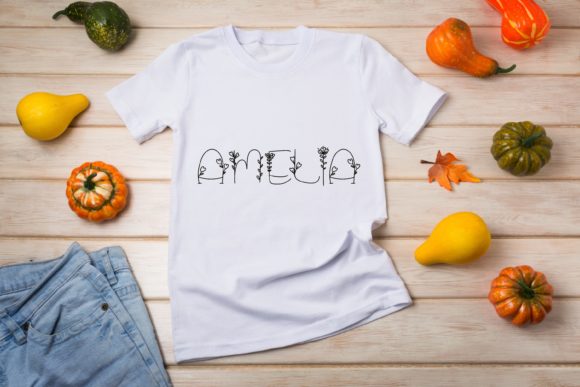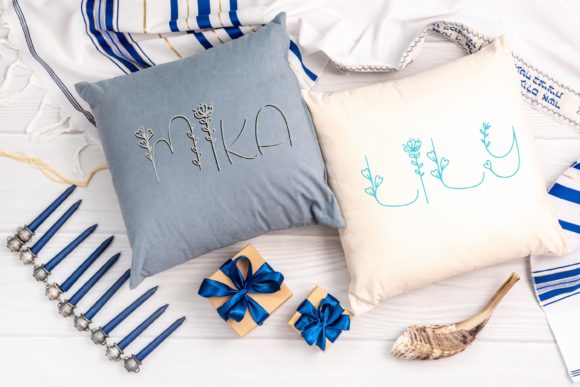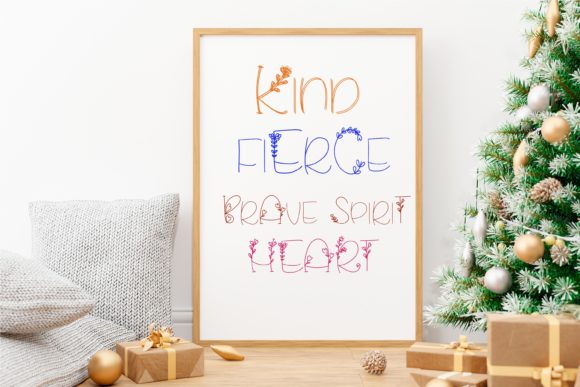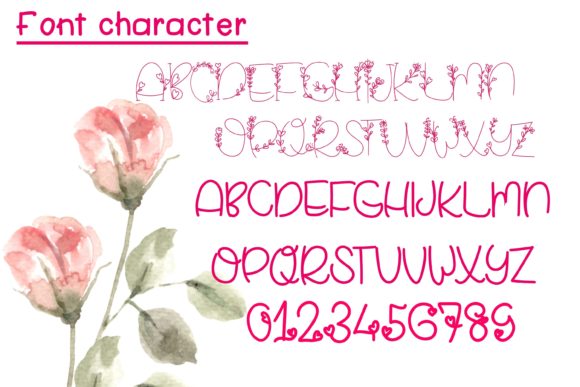
Introducing Amaryllis Font: The Perfect Choice for Whimsical Designs
Are you a designer, crafter, or educator looking for a font that embodies playfulness and authenticity? Look no further than Amaryllis Font! This thin lettered decorative font is perfect for any children activity or school project that requires a touch of whimsy and fun.
What is Amaryllis Font?
Amaryllis Font is a unique and charming font that features thin, delicate letters with a playful and airy feel. Its elegant and refined appearance makes it perfect for designs that require a touch of sophistication, while its whimsical nature ensures that it remains approachable and fun.
Characteristics of Amaryllis Font
So, what makes Amaryllis Font so special? Here are just a few of its key characteristics:
- Thin lettering: Amaryllis Font features thin, delicate letters that are perfect for creating elegant and refined designs.
- Playful feel: Despite its elegant appearance, Amaryllis Font has a playful and airy feel that makes it perfect for designs that require a touch of whimsy.
- Authentic look: Amaryllis Font has an authentic, hand-crafted look that makes it perfect for designs that require a personal touch.
Uses for Amaryllis Font
So, what can you use Amaryllis Font for? The possibilities are endless! Here are just a few ideas to get you started:
- Children’s activities: Amaryllis Font is perfect for children’s activities, such as coloring pages, worksheets, and activity sheets.
- School projects: Amaryllis Font is also great for school projects, such as posters, presentations, and reports.
- Crafting projects: Amaryllis Font is perfect for crafting projects, such as card making, scrapbooking, and DIY signs.
- Digital designs: Amaryllis Font can also be used for digital designs, such as social media graphics, blog posts, and website headers.
Benefits of Using Amaryllis Font
So, why should you choose Amaryllis Font for your next design project? Here are just a few benefits of using this amazing font:
- Unique look: Amaryllis Font has a unique and distinctive look that will set your designs apart from the crowd.
- Easy to read: Despite its thin lettering, Amaryllis Font is easy to read and understand, making it perfect for designs that require a clear and concise message.
- Versatile: Amaryllis Font is versatile and can be used for a wide range of design projects, from children’s activities to digital designs.
Tips for Using Amaryllis Font
Here are a few tips for using Amaryllis Font in your designs:
- Use it sparingly: Amaryllis Font is perfect for headings and titles, but can be overwhelming if used for large blocks of text.
- Pair it with other fonts: Amaryllis Font pairs well with other fonts, such as bold and sans-serif fonts, to create a visually appealing design.
- Experiment with colors: Amaryllis Font looks great in a variety of colors, from bright and bold to pastel and soft.
In conclusion, Amaryllis Font is a unique and charming font that embodies playfulness and authenticity. Its thin lettered decorative design makes it perfect for any children activity or school project that requires a touch of whimsy and fun. With its elegant and refined appearance, Amaryllis Font is sure to add a touch of sophistication to any design. So why not give it a try and see the difference it can make in your next design project?